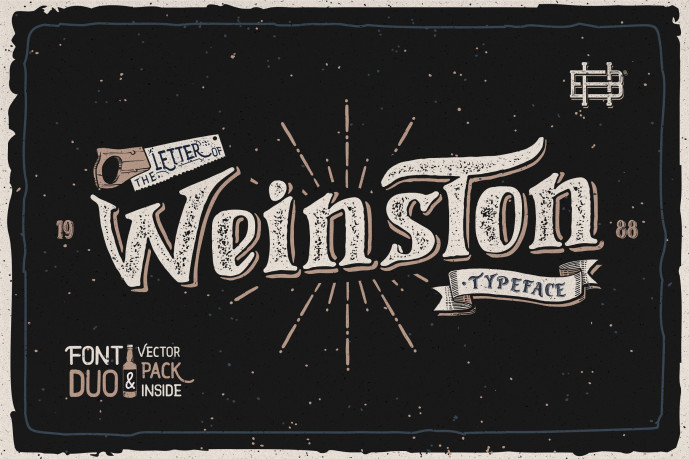
Weinston Font
Designer: basquebing
Step back into the golden age of hand-lettered signage with Weinston, a complete font duo and vector pack! Featuring a textured, hand-drawn script with a matching complementary serif and a bundle of vintage vector illustrations, this set gives you everything needed to build authentic retro graphics.
Whether you’re crafting barbershop logos, craft brewery labels, vintage signboards, apparel graphics, or retro packaging, Weinston delivers timeless hand-carved character.